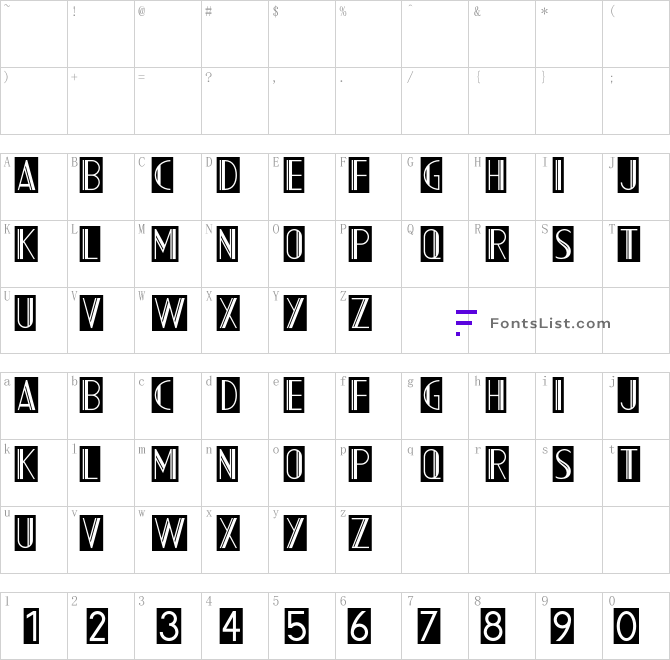
- Font Name:AC Mountain Inverted
AC-Mountain-Inverted.otf is a very beautiful artistic font, AC-Mountain-Inverted.otf is widely used in the design and printing of various books and pictures,AC-Mountain-Inverted.otf has a strong visual impact,AC-Mountain-Inverted.otf is a commonly used font in newspapers, magazines and books, and is used in posters, e-commerce Poster design, store design, logo design, font design and other fields.AC-Mountain-Inverted.